Top Free Sketch Fonts Every Designer Needs to Download
Sketch fonts are a crucial element in graphic design, adding creativity and a personal touch to any project. These fonts mimic the appearance of hand-drawn artwork, giving designs a unique and authentic feel. Whether it’s for a logo, website, or poster, using a sketch font can instantly elevate the visual appeal of the design.
Finding the perfect sketch font can be a challenge, especially when you’re on a tight budget. That’s why we’ve compiled a list of the top free sketch fonts that every designer needs to download. These fonts are not only stunningly crafted but also completely free, making them a valuable resource for designers of all levels.
In this article, we’ll discuss the importance of sketch fonts in design and provide the necessary tips for choosing and using them effectively. Whether you’re a beginner or a seasoned designer, incorporating sketch fonts into your work will surely make a lasting impression. So, let’s dive in and discover the world of free sketch fonts.
Importance of Sketch Fonts in Design
Sketch fonts play a crucial role in graphic design, bringing a sense of creativity and personal touch to any project. These fonts mimic the appearance of hand-drawn artwork, adding an authentic and unique feel to designs. They are especially popular for logo designs, websites, and posters, where they can instantly elevate the visual appeal.
One of the key reasons why sketch fonts are important in design is that they add a humanistic element to designs, making them more relatable and engaging for viewers. Unlike standard fonts, sketch fonts have an organic and imperfect quality, which can convey a sense of authenticity and warmth. They can also evoke a nostalgic and whimsical feeling, depending on the style of the sketch font used.
Additionally, sketch fonts can help designers create a more personalized and customized look for their projects, standing out from the crowd of generic designs. They allow designers to experiment with different styles, strokes, and textures, enabling them to enhance the overall aesthetic and impact of their work. Overall, sketch fonts are a valuable resource for designers looking to add a unique and artistic touch to their designs, without having to create every element from scratch.
How to Choose the Best Sketch Fonts for Design Projects
When selecting sketch fonts for design projects, it is important to consider several factors to ensure the best outcome. First, consider the intended purpose and theme of the project. Different sketch fonts have different styles and personalities, so choose one that aligns with the overall aesthetic you want to convey. Look for fonts that are legible and easy to read, even in smaller sizes. It is also crucial to consider compatibility with different devices and platforms to ensure a consistent experience for all users. Additionally, pay attention to the licensing requirements of the font. Many free sketch fonts are available, but some may have restrictions on commercial use. Lastly, take the time to test and experiment with different sketch fonts to find the one that best suits the design project and brings your vision to life.
Tips for Using Sketch Fonts Effectively in Design Work
When using sketch fonts in design work, there are a few tips to keep in mind for maximum impact. First, consider the context and purpose of the design. Handwritten sketch fonts are great for conveying a more personal or informal vibe, while cleaner sketch fonts can add a touch of creativity without being overly whimsical. It’s also important to pay attention to readability. Sketch fonts can sometimes be more decorative, so make sure the words can still be easily read and understood. To further enhance the design, consider pairing sketch fonts with other complementary fonts to create a harmonious visual balance. Experiment with different sizes, weights, and spacing to find the right combination. Lastly, when using sketch fonts, ensure that they are scalable and compatible across different devices and platforms to maintain a consistent experience for all users.
In conclusion, sketch fonts are invaluable assets for designers seeking to infuse their projects with creativity and personality. By carefully selecting versatile and legible sketch fonts, designers can elevate their designs and captivate audiences with visually stunning artwork. With the abundance of free sketch fonts available online, designers have ample resources at their disposal to unleash their creativity and bring their design visions to life.
Check out these top free sketch fonts that can add a unique and artistic touch to your design projects. With their hand-drawn look and playful charm, these fonts are perfect for creating eye-catching headlines and logos.
Sketching Universe – Pencil Sketch Font
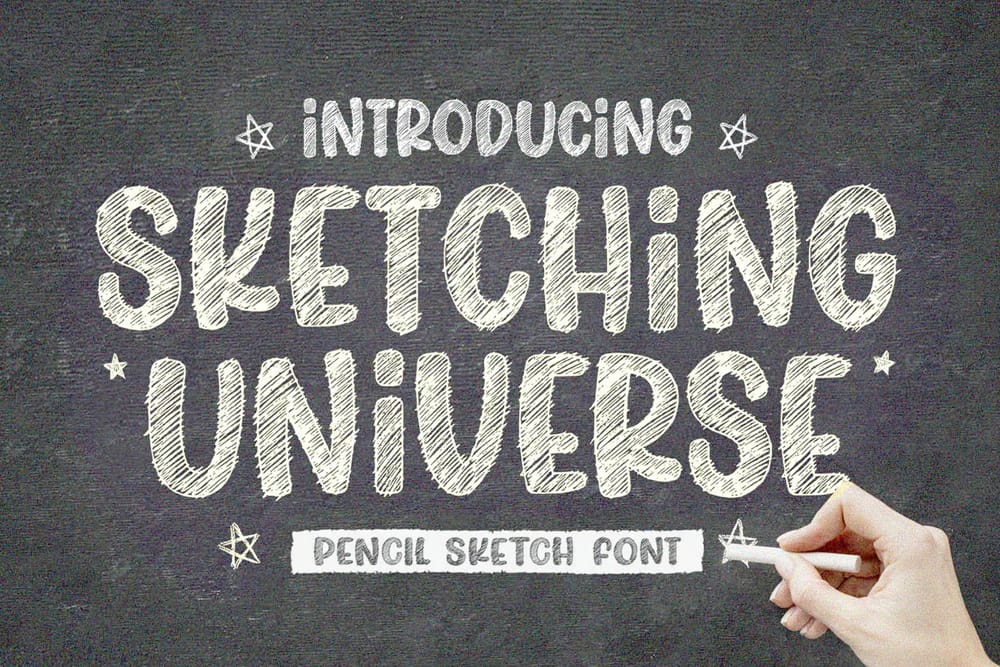
Twinses Display Font
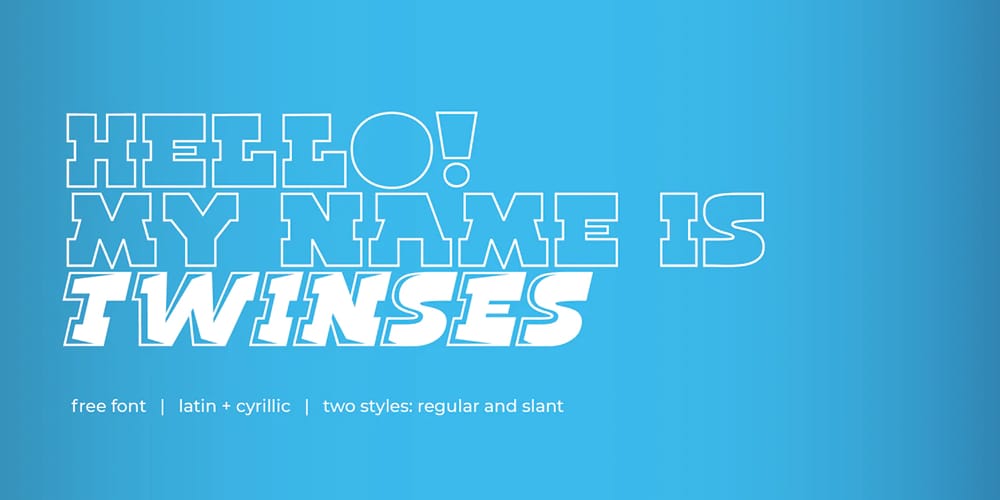
Fredericka the Great Font
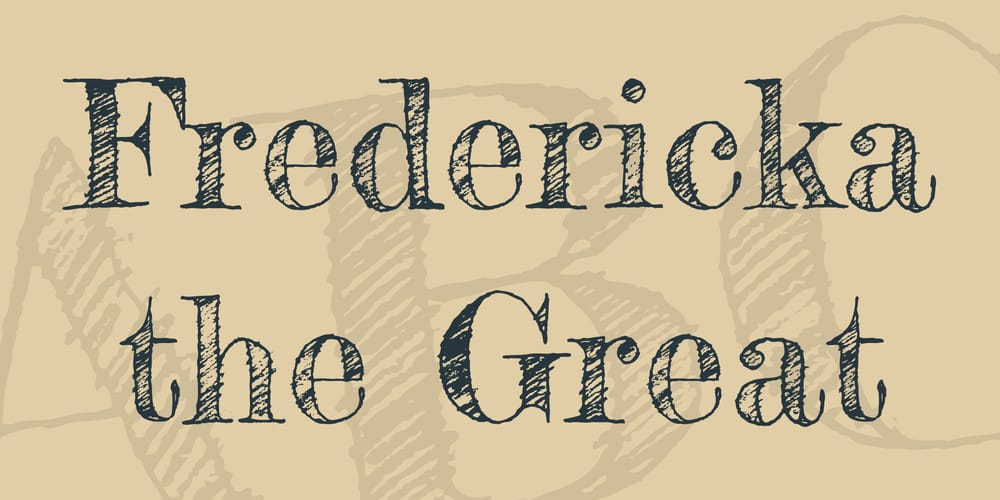
Sketchy – Rough Sketch Font
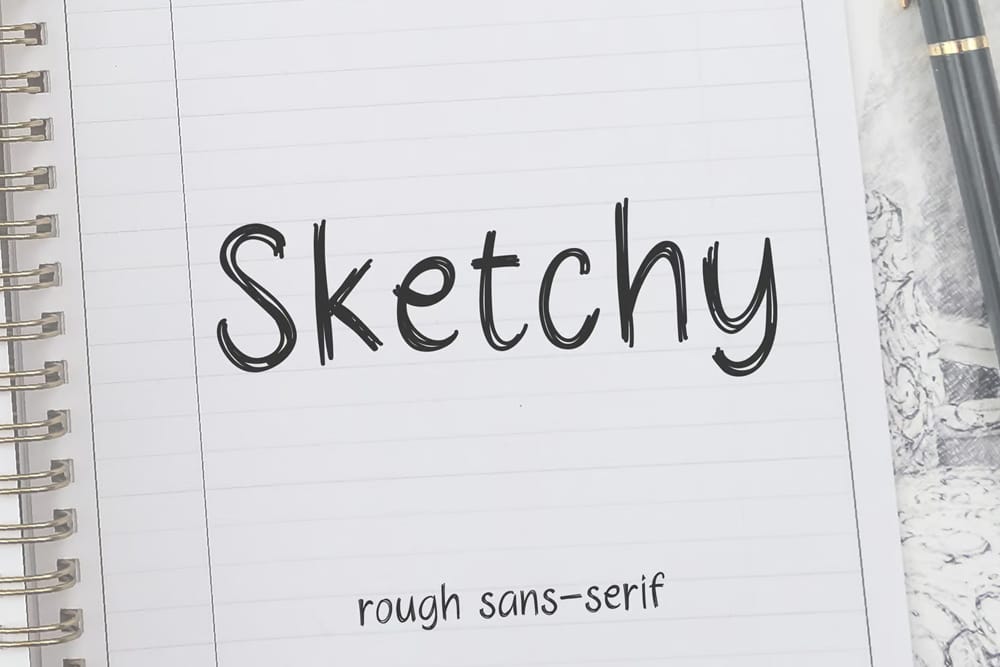
Umberette Font
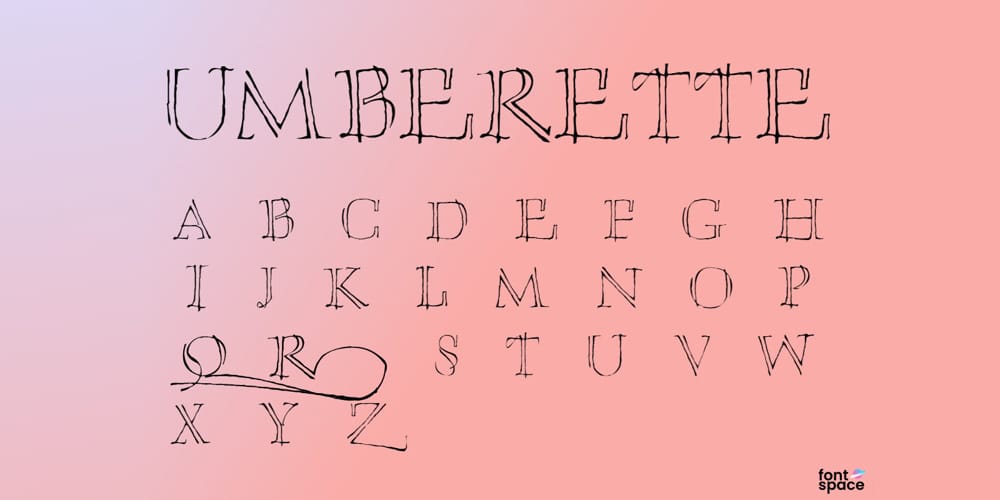
Cabinsketch
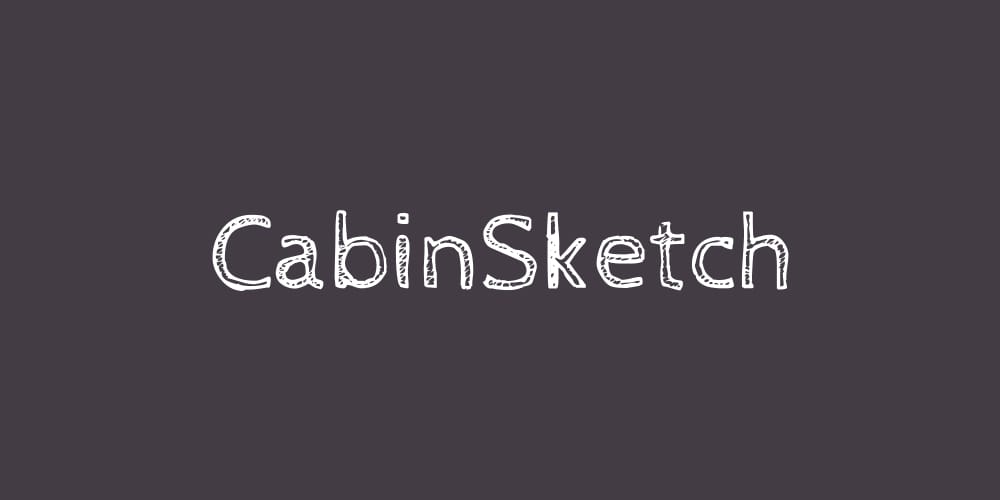
Penhead – Pencil Sketch Font
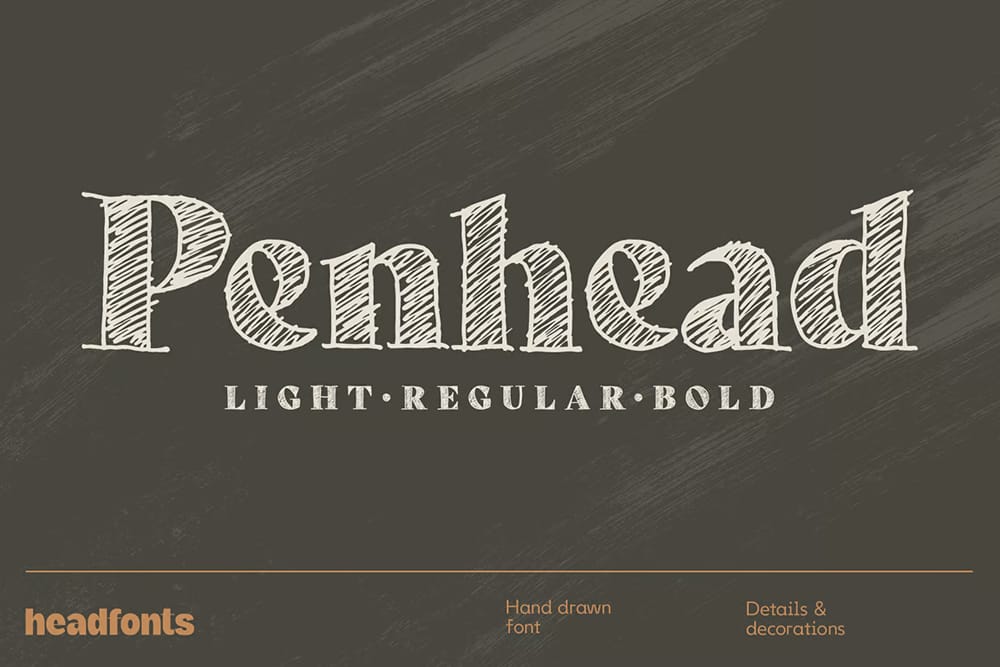
Delbert Sketch
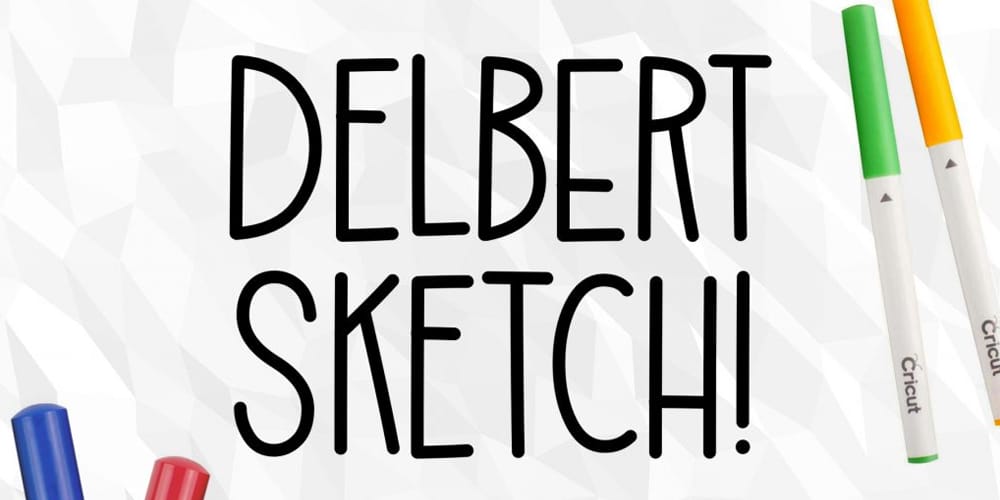
RollandinEmilie Font
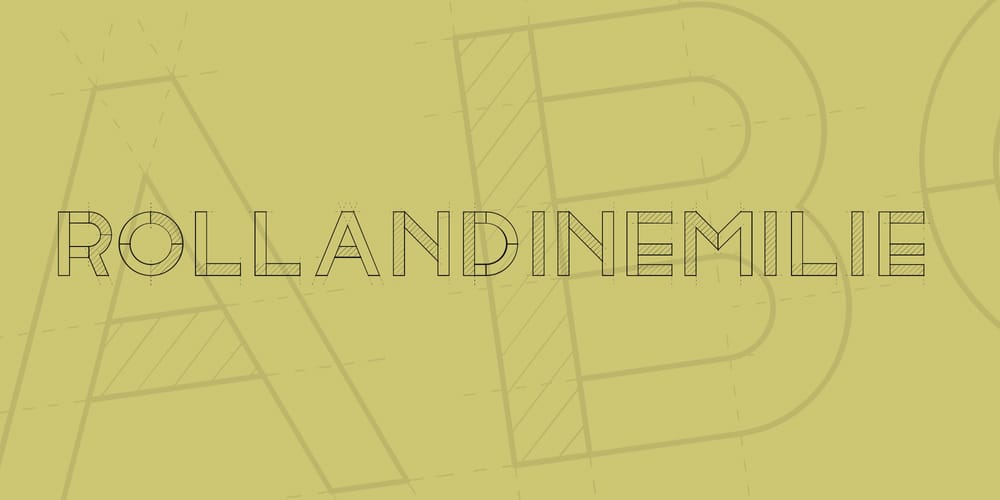
Sketchbook Font
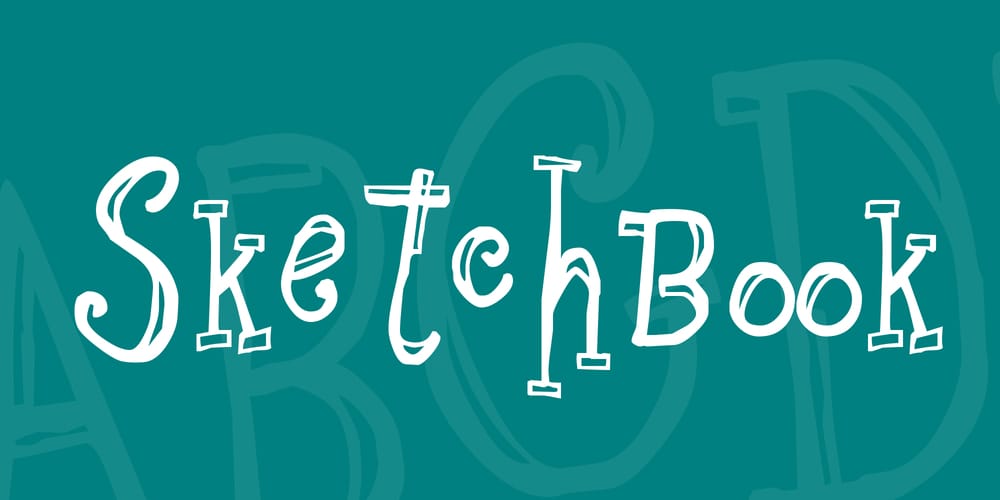
REV V2 Font
Sketchy
Archistico
Wincing Font
Dickie Font
Sketchtica
Londrina
Pencilant Font
Origicide Font
Splincide Font
PWScratchedfont Font
Rain Shaman Font
Belepotan Font